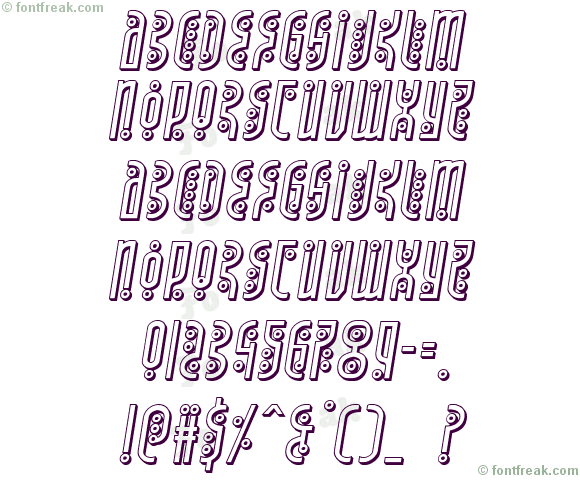
Underground Rose Outline Italic
About Underground Rose Outline Italic
The Underground Rose Outline Italic font by Daniel Zadorozny is a striking decorative typeface that embodies a unique blend of whimsy and sophistication. As an outline font, it boasts a distinctive aesthetic characterized by its bold stroke weight and playful, curvaceous forms. The italic style adds a sense of dynamism, making the letters appear as if they are in motion, which can captivate the viewer's attention. The visual characteristics of this font include a moderate contrast between thick and thin strokes, creating an eye-catching outline effect that enhances its decorative nature. The spacing between letters is thoughtfully designed to maintain legibility while allowing for artistic flair, making it suitable for various applications.
This font shines in creative projects, particularly in designing wedding invitations, where its elegance can set a romantic tone. Movie posters can benefit from its bold presence, drawing attention to titles and taglines in a visually appealing way. Additionally, restaurant menus can use the Underground Rose Outline Italic to create a unique branding experience, making the offerings feel special and inviting. Graphic designers and content creators will particularly appreciate this font for its versatility in branding and marketing materials, as it adds a layer of sophistication and charm.